Born in 1903, Al Hirschfeld was known for his iconic black and white caricatures of Broadway and Hollywood figures, many of which appeared in The New York Times for decades. For his letterhead, he stuck to his signature minimalism: a simple portrait of himself perched atop the page, writing his own name.
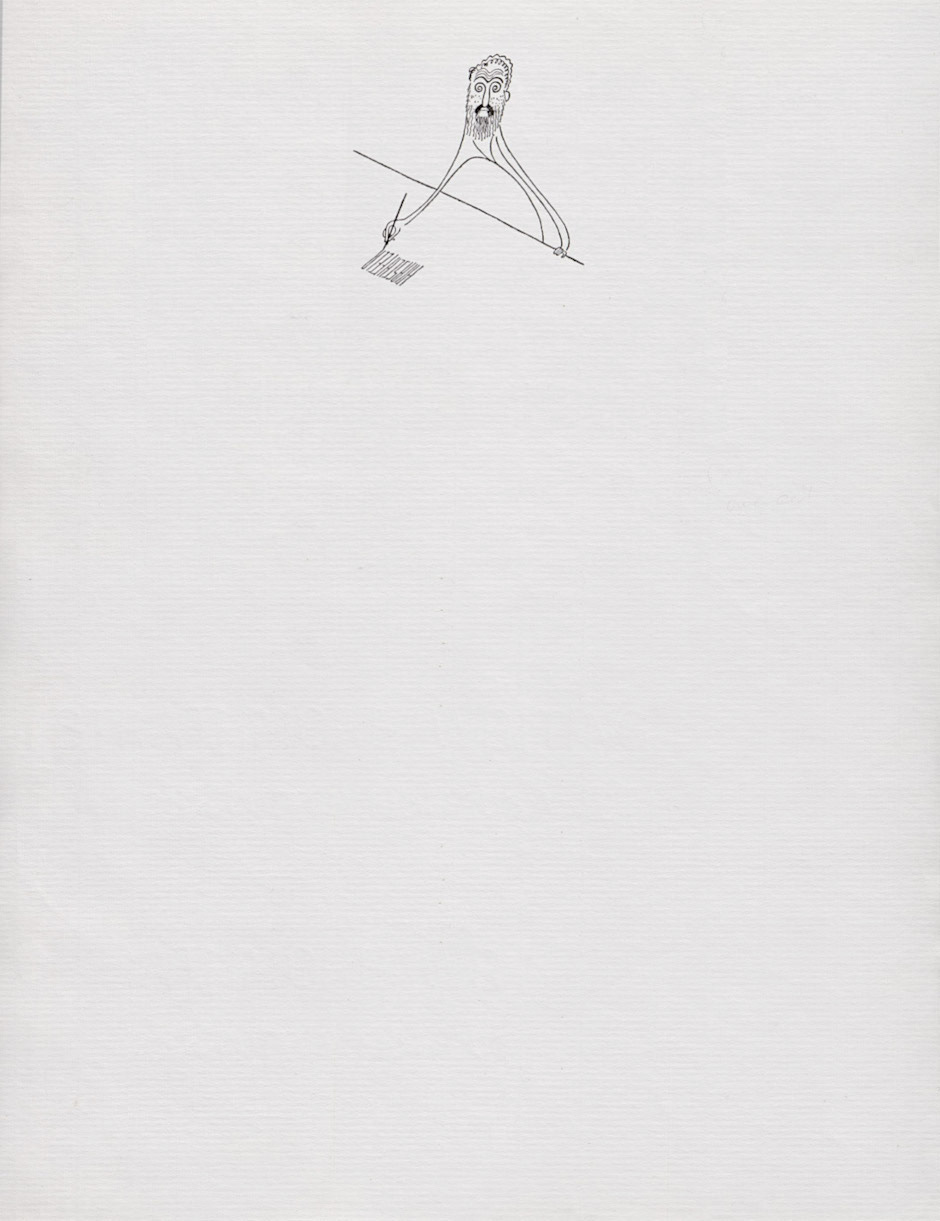
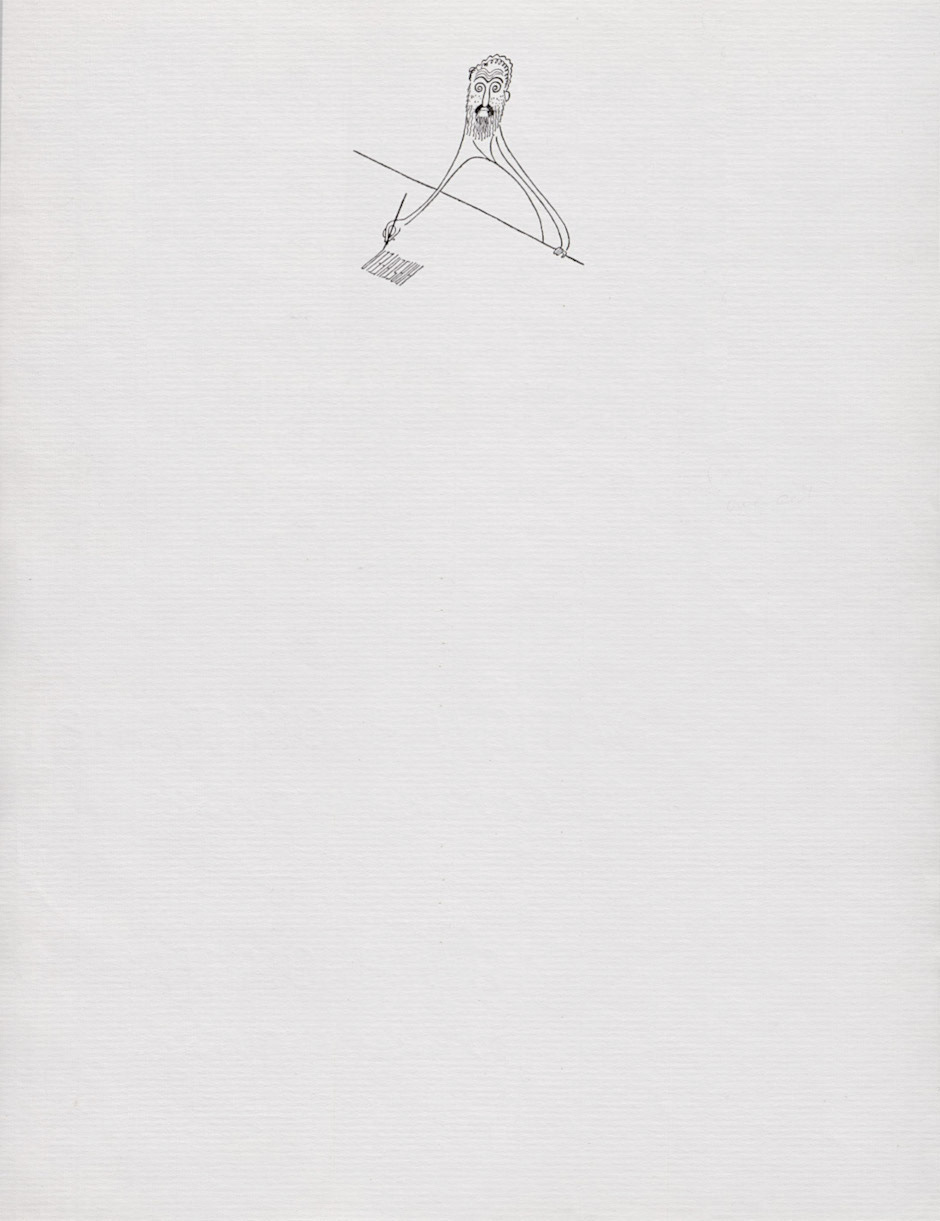
Sans Nina?